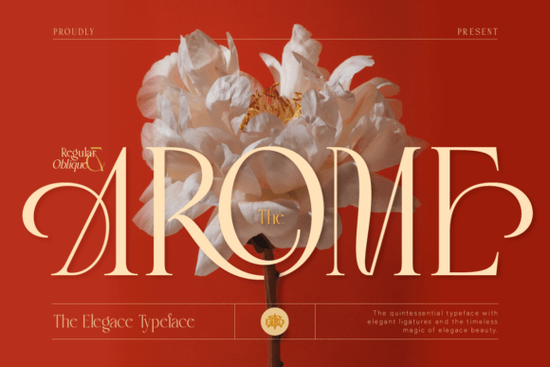
When it comes to adding a touch of elegance and sophistication to your designs, the Arome Font is a fantastic choice. This refined serif typeface is designed to bring a sense of timeless beauty and modern charm to any project. Whether you're working on luxury branding, wedding invitations, or fashion editorials, Arome can help you create something truly special.
Why Choose Arome for Your Design Projects?
Arome stands out with its graceful curves, high contrast strokes, and delicate details, making it a versatile and luxurious option. The font's ability to adapt to both soft, feminine designs and bold, editorial styles makes it a go-to choice for many designers. Here’s why you might want to consider Arome for your next project:
- Elegance and Sophistication: Arome's design is all about bringing a refined and elegant look to your work. Its high contrast and graceful curves give it a luxurious feel that can elevate any design.
- Versatility: Available in Regular and Oblique styles, Arome offers the flexibility to create a wide range of designs. Whether you need a polished, expressive look or something more subtle, Arome can handle it.
- Unique Typography: With stylish ligatures and carefully crafted alternates, Arome allows you to create unique and high-end typography. Every letter is designed to flow naturally, making your text look effortlessly elegant.
Perfect for a Variety of Uses
Arome is perfect for a wide range of design projects. Here are some of the areas where it shines:
- Luxury Branding & Logos: If you’re working on a brand that needs a touch of class, Arome can help you create a logo that feels both classic and modern.
- Wedding Invitations: For those special moments, Arome can add a romantic and elegant touch to wedding invitations, making them stand out.
- Fashion Editorials & Magazines: In the world of fashion, Arome can bring a sophisticated and high-end look to your editorial designs and magazine layouts.
- Beauty and Lifestyle Designs: Arome’s refined style makes it ideal for beauty and lifestyle designs, where elegance and detail are key.
- Packaging Design: From product packaging to labels, Arome can help you create a design that feels both luxurious and inviting.
- Social Media Content: Whether you’re creating posts, stories, or ads, Arome can add a touch of elegance to your social media content.
- Headlines & Display Typography: For impactful headlines and display typography, Arome’s high contrast and graceful curves make it a standout choice.
Features and File Types
Arome comes with a comprehensive set of features to help you create beautiful and unique designs. Here’s what you get:
- A – Z Set (Uppercase & Lowercase): A full set of uppercase and lowercase letters to cover all your typographic needs.
- Numbers and Punctuation: A complete set of numbers and punctuation marks to ensure your designs are well-rounded and professional.
- Alternates and Ligatures: Stylish alternates and carefully crafted ligatures to help you create unique and high-end typography.
- Multilingual Support: Arome supports multiple languages, making it a versatile choice for international projects.
How to Use Arome Effectively
To get the most out of Arome, here are a few tips:
- Experiment with Alternates and Ligatures: Try using the alternates and ligatures to create unique and visually appealing typography. These features can add a personal touch to your designs.
- Combine Styles: Mix and match the Regular and Oblique styles to add variety and depth to your projects. This can help you achieve a more dynamic and expressive look.
- Use for Headlines and Titles: Arome’s high contrast and elegant design make it perfect for headlines and titles. Use it to create impactful and memorable text.
Final Thoughts
Arome is a versatile and elegant serif font that can add a touch of luxury and sophistication to your designs. Whether you’re working on a wedding invitation, a fashion editorial, or a luxury brand, Arome can help you create something truly special. Give it a try and see how it can transform your projects.